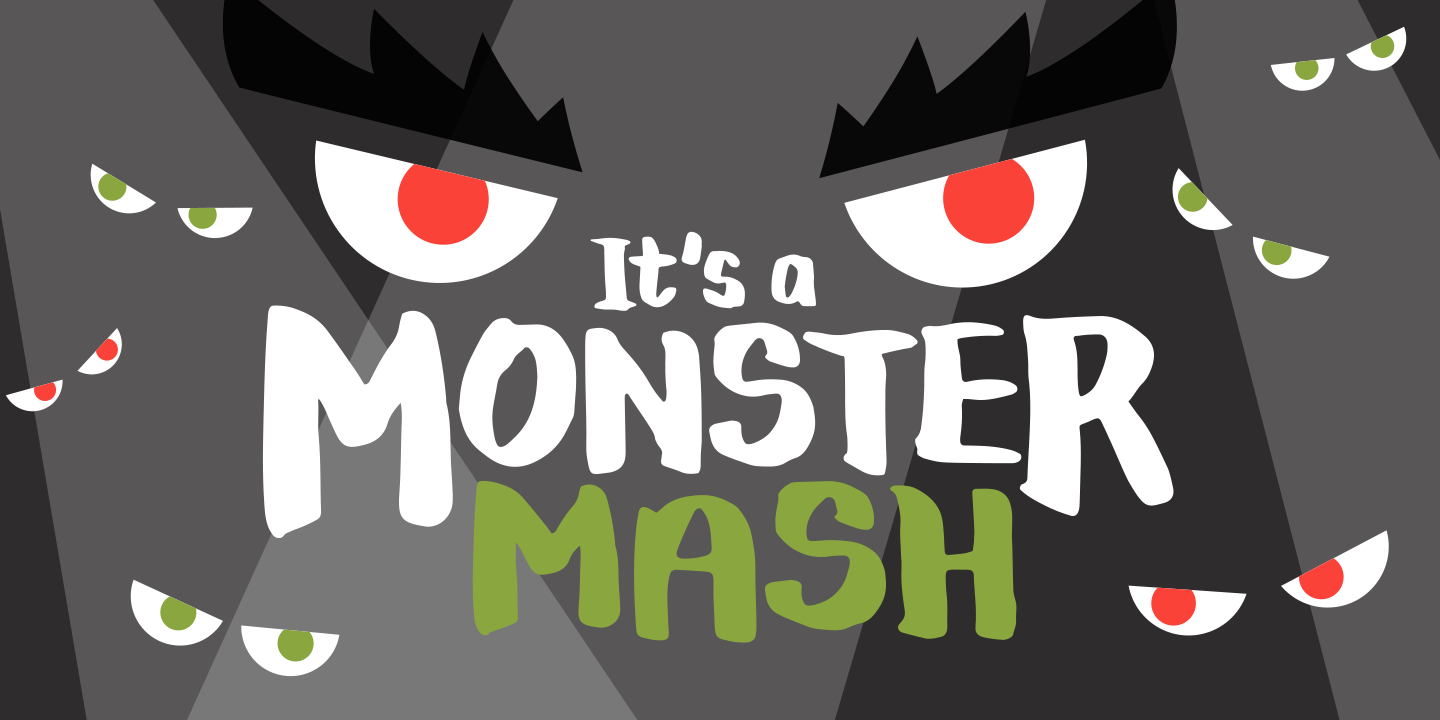
Oggie Marker Free Download
Oggie Marker Font Free Download
Oggie Marker Font is perfect for children's book illustrations, educational materials, playful branding projects, youth-oriented marketing campaigns, art supply packaging, creative workshop signage, school project displays, comic book lettering, and casual advertising designs. This fun typeface excels in both creative digital applications and vibrant print materials.
What makes Oggie Marker Font exciting is its authentic representation of hand-drawn marker strokes combined with playful energy that instantly creates a sense of creativity and spontaneous expression. The carefully designed letterforms feature irregular textures and organic variations that capture the essence of actual marker writing while maintaining excellent readability. Its cheerful appearance instantly adds personality and warmth to any design project, making it perfect for brands seeking to communicate approachability and creative spirit.
The Oggie Marker Font family includes multiple expressive variations: Regular, Bold, Thin, Thick, Outlined, and Textured versions. Each family member maintains consistent marker aesthetics while offering different visual impacts for diverse creative design applications and playful branding needs.
Oggie Marker Font Free Download offers designers an exceptional tool for creating engaging communications that capture the spontaneity and creativity of hand-drawn artwork. This remarkable typeface combines authentic marker textures with modern functionality, making it ideal for educational publishers, children's brands, creative agencies, and art-focused organizations. The font's distinctive characteristics include irregular letterforms, natural stroke variations, and playful details that reflect the organic nature of marker drawing while ensuring excellent legibility across all creative applications.
Professional designers appreciate Oggie Marker Font for its versatility across different creative and educational markets. Whether developing children's product branding, educational materials, or creative workshop graphics, this font maintains its playful presence and artistic quality. The typeface supports extensive character sets and includes creative symbols relevant to art education, children's content, and casual communication contexts.
The creation of Oggie Marker Font involved extensive study of hand-drawn lettering techniques and marker writing characteristics. Its authentic appearance honors traditional art education while providing contemporary functionality for modern creative design needs. The font's organic proportions and playful character make it particularly effective for youth-oriented communications and creative industry materials.
For graphic designers working on creative and educational projects, Oggie Marker Font provides exceptional personality and artistic authenticity. Its cheerful appearance works wonderfully in children's publications, art supply marketing, and creative workshop materials. The font's premium quality ensures professional results whether used in digital educational platforms or colorful print applications.